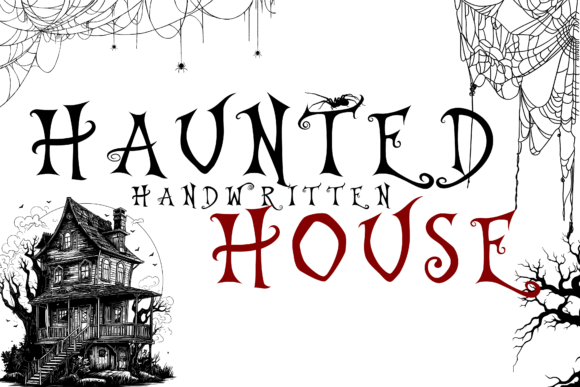
The Spooky Charm of the Haunted House Font
Have you ever found yourself scribbling down a brilliant idea in the dead of night, with nothing but the faint glow of a desk lamp to guide you? That’s exactly where the magic happens – in the quiet hours, when creativity knows no bounds. It’s a moment like this that inspired the creation of the Haunted House Font, a handwritten masterpiece designed for those late-night epiphanies.
This font is more than just a tool for jotting down notes or writing in a diary – it’s a way to add a touch of personality to your designs. Whether you’re crafting greeting cards, banners, or social media posts, the Haunted House Font can bring a unique, handwritten charm to your creations.
For designers, the Haunted House Font offers endless possibilities for adding a personal touch to their work. Its versatility and spooky charm make it a valuable addition to any design toolkit.
Haunted House Font Key Features
- Font Family: Haunted House is a display font, perfect for creating spooky and eerie atmospheres in various design projects.
- Size: The font family includes 4 styles: Regular, Bold, Italic, and Bold Italic, each with a wide range of characters and glyphs.
- Resolution: Optimized for high-resolution displays, ensuring crisp and clear text rendering at any zoom level.
- Unique Characteristics: Haunted House features a unique blend of Gothic and horror-inspired elements, with intricate details and ornaments that add to its eerie charm.
- Characters: Includes a comprehensive set of characters, including Latin, Cyrillic, and Greek alphabets, as well as punctuation marks and symbols.
Haunted House Font Review
Overall, I was quite excited to dive into the Haunted House Font, and it did not disappoint. ✨ The font’s distressed, eerie feel perfectly captures the essence of a haunted mansion, making it a great choice for Halloween-themed designs or horror-inspired projects.
One of the standout features of the font is its versatility. ✨ It comes in a range of weights and styles, from bold and spooky to delicate and eerie, allowing designers to choose the perfect tone for their project. The font also includes a variety of special characters, such as ghostly symbols and creepy creatures, which add an extra layer of depth and interest.
What Doesn’t Work
While the Haunted House Font is a great choice for many projects, there are a few limitations to be aware of. ⚠️ For one, the font may be a bit too over-the-top for more subtle or sophisticated designs. Additionally, some of the characters may not display correctly in certain software or environments, which can be frustrating for designers who need to work with a variety of tools.
- Limited suitability for subtle or sophisticated designs
- Potential issues with character display in certain software or environments
Overall, I would highly recommend the Haunted House Font for designers looking to add a touch of spooky flair to their projects. While it may not be suitable for every design, its unique character and versatility make it a great choice for the right project.
Haunted House Font Practical Application Guide
The Haunted House Font is perfect for creating spooky and eerie designs for Halloween-themed projects. It can be used for:
- Halloween invitations and party decorations
- Spooky social media graphics and ads
- Haunted house and horror movie posters
Remember to use the font in moderation and balance it with other design elements to avoid overwhelming your audience.